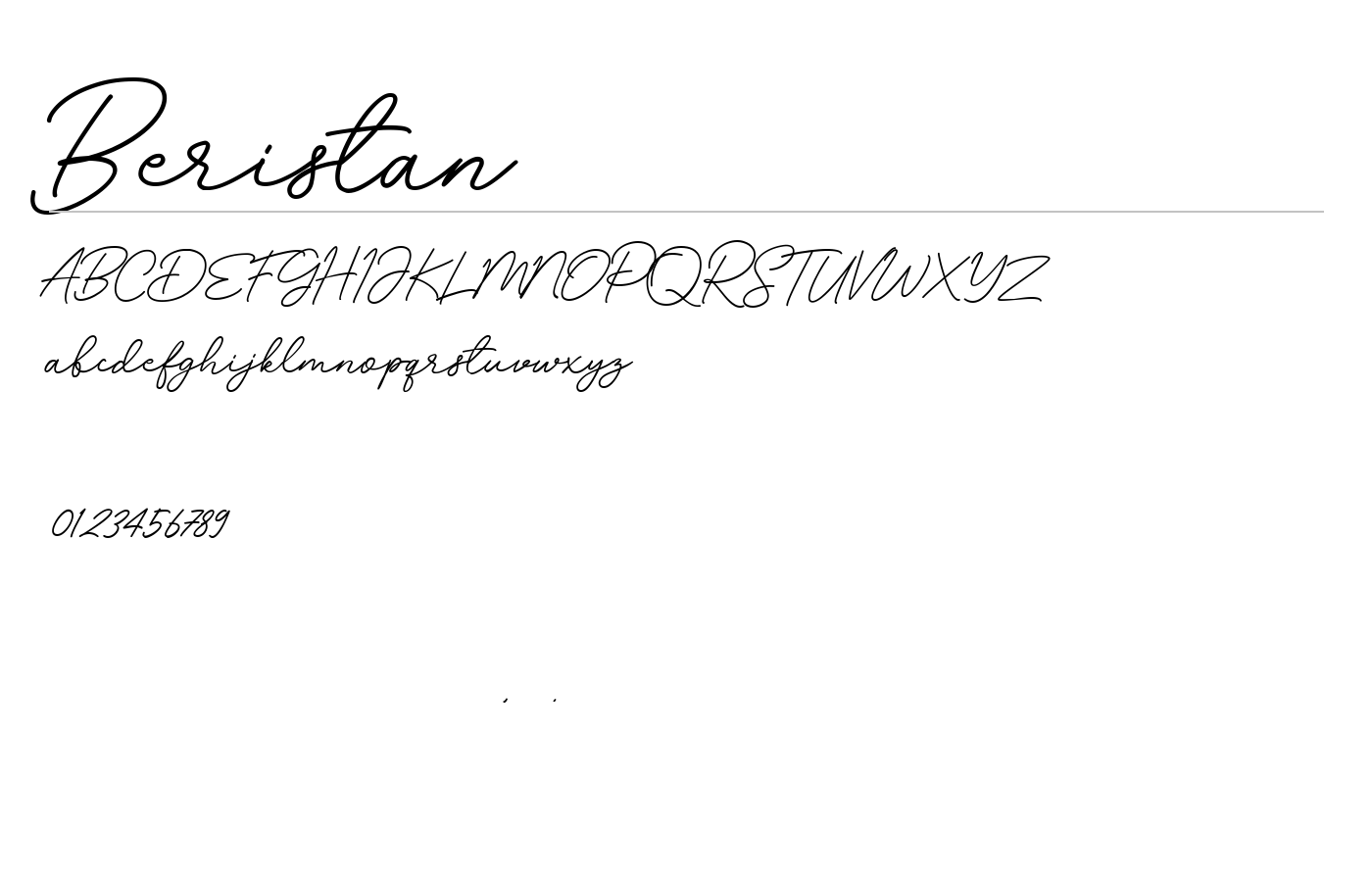
Beristan is a delicate, elegant script font characterized by its fine, flowing strokes and graceful letterforms that mimic natural handwriting. It features a light weight and a consistent, narrow width, making it perfect for sophisticated branding, invitations, or any design seeking a personal, refined touch. Its airy and stylish appearance lends a modern yet timeless feel, ideal for fashion, luxury, and editorial use where a subtle yet expressive font is desired.
Beristan Font
About Beristan Font
| Font family | Beristan Font |
| Designer | Iqbal Pauji |